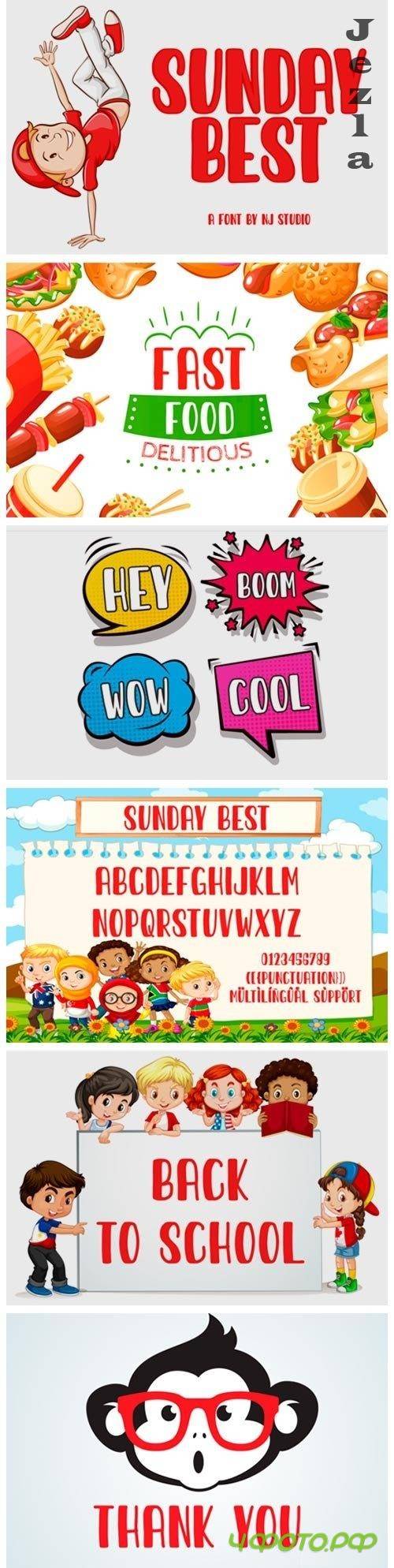
Sunday Best Font
Sunday Best is a cute and casual handwritten font with an incredibly friendly feel. Whether you’re looking for fonts for Instagram or calligraphy scripts for DIY projects, this font will turn any creative idea into a true piece of art!